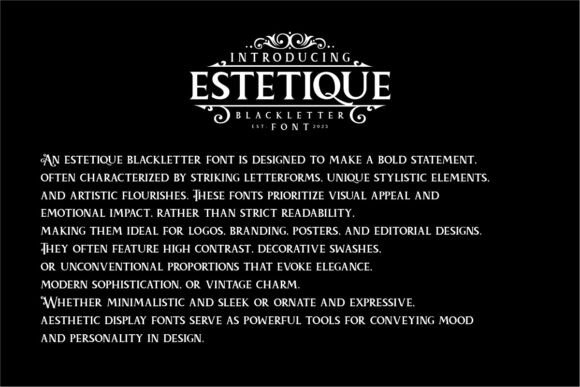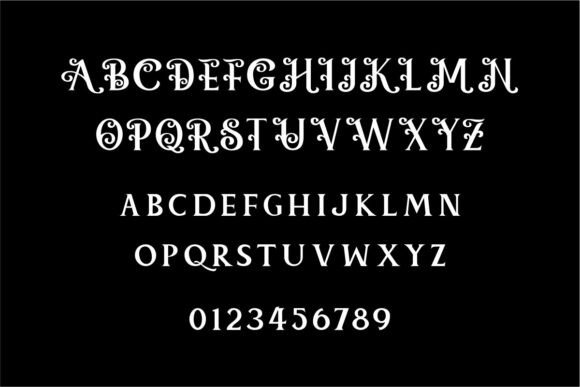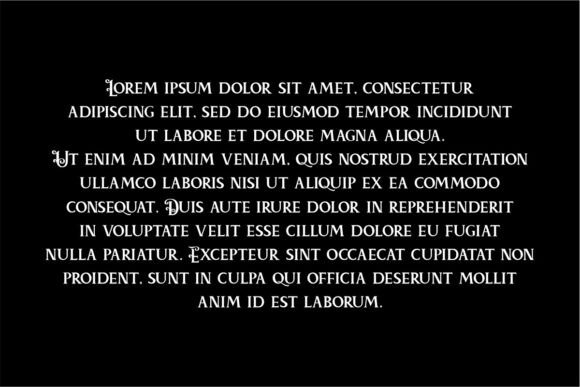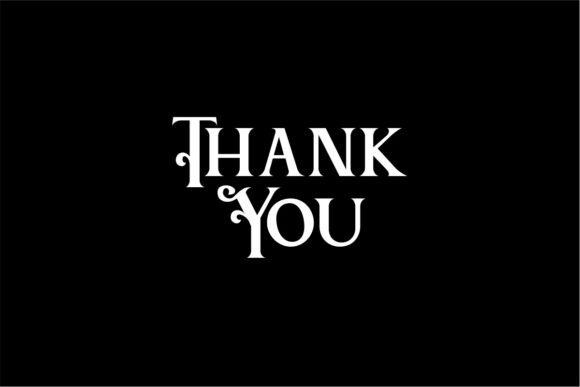
The Art of Estetique Fonts: Elevating Design with Bold Statements
In the world of typography, estetique fonts have emerged as a powerful tool for designers seeking to make a lasting impression. An estetique blackletter font, in particular, is designed to turn heads with its striking letterforms, unique stylistic elements, and artistic flourishes. These fonts prioritize visual appeal and emotional impact over strict readability, making them perfect for logos, branding, posters, and editorial designs that demand attention.
Characteristics of Estetique Fonts
Estetique fonts are often characterized by high contrast, decorative swashes, or unconventional proportions that evoke a sense of elegance, modern sophistication, or vintage charm. These distinctive features allow designers to convey a specific mood or personality in their work, setting estetique fonts apart from more traditional typography. Whether minimalistic and sleek or ornate and expressive, estetique display fonts serve as a versatile canvas for creative expression.
The Power of Blackletter Fonts
Blackletter fonts, a subset of estetique fonts, have a rich history dating back to the Middle Ages. These fonts are characterized by their dramatic, ornate letterforms, often featuring intricate flourishes and sharp serifs. In modern design, blackletter fonts have been reimagined with a fresh perspective, incorporating bold lines, striking contrasts, and artistic embellishments. This blend of tradition and innovation makes blackletter fonts a popular choice for designers seeking to add a touch of sophistication and drama to their work.
Design Applications for Estetique Fonts
Estetique fonts are incredibly versatile, making them suitable for a wide range of design applications. Some popular uses include:
- Logos and Branding: Estetique fonts can help create a memorable brand identity, setting a company apart from its competitors.
- Posters and Editorial Design: These fonts are perfect for creating eye-catching posters, magazine headlines, and editorial designs that demand attention.
- Packaging and Advertising: Estetique fonts can add a touch of elegance and sophistication to product packaging and advertising materials.
Tips for Working with Estetique Fonts
When working with estetique fonts, it’s essential to consider the following tips:
- Balance is Key: Combine estetique fonts with more traditional typography to create visual balance and hierarchy.
- Legibility Matters: While estetique fonts prioritize visual appeal, ensure that your text remains legible, especially for body copy.
- Experiment and Play: Don’t be afraid to experiment with different font combinations, sizes, and styles to find the perfect aesthetic.
The Future of Estetique Fonts
As design trends continue to evolve, estetique fonts are likely to play an increasingly important role in shaping the visual landscape. With the rise of digital platforms, designers have more opportunities than ever to experiment with bold, creative typography. As a result, estetique fonts will continue to inspire designers to push the boundaries of typography, creating innovative and captivating designs that leave a lasting impression.
| Font Name | Estetique Font |
| Author | Eko Kurniawan |
In conclusion, estetique fonts offer designers a powerful tool for making a bold statement and conveying mood and personality in their work. With their striking letterforms, unique stylistic elements, and artistic flourishes, estetique fonts are perfect for logos, branding, posters, and editorial designs. By understanding the characteristics, applications, and best practices for working with estetique fonts, designers can unlock new creative possibilities and take their designs to the next level.